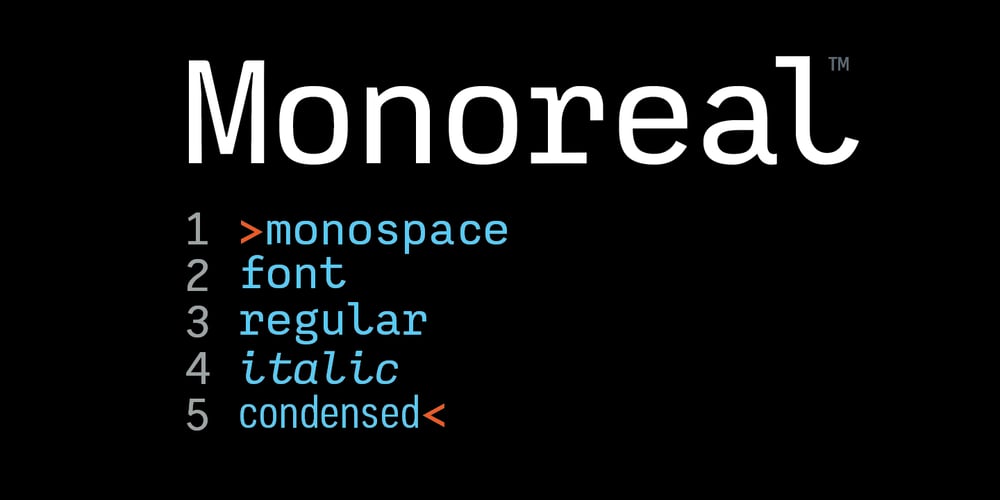
Monoreal
Monoreal font
Monoreal Font Family was designed by John Nahmias and published by Jonahfonts. Monoreal contains 4 styles and family package options. Monoreal, a basic coding font. Unlimited Single Fractions can be had.The GOTHIC STYLE is NOT monospaced and is kerned, designed for subtitles and other various applications.